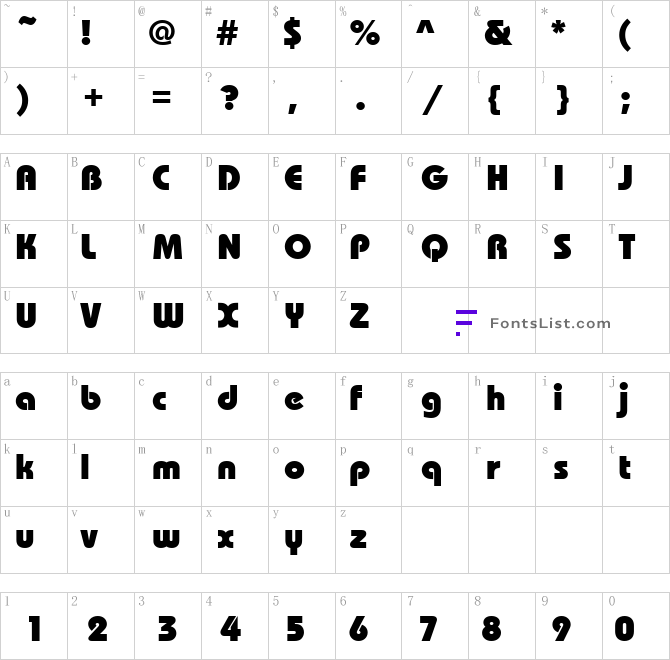
- Font Name:BauhausITCEEHea
BauhausITCEEHea.ttf is a very beautiful artistic font, BauhausITCEEHea.ttf is widely used in the design and printing of various books and pictures,BauhausITCEEHea.ttf has a strong visual impact,BauhausITCEEHea.ttf is a commonly used font in newspapers, magazines and books, and is used in posters, e-commerce Poster design, store design, logo design, font design and other fields.BauhausITCEEHea.